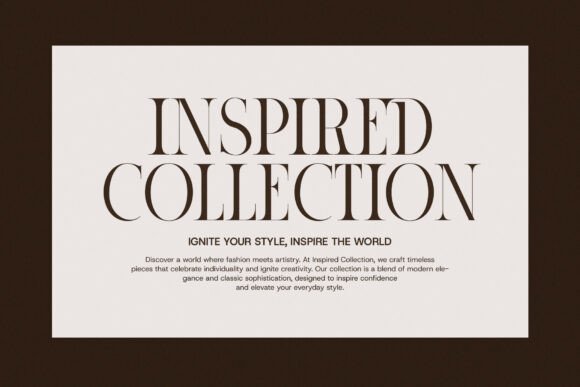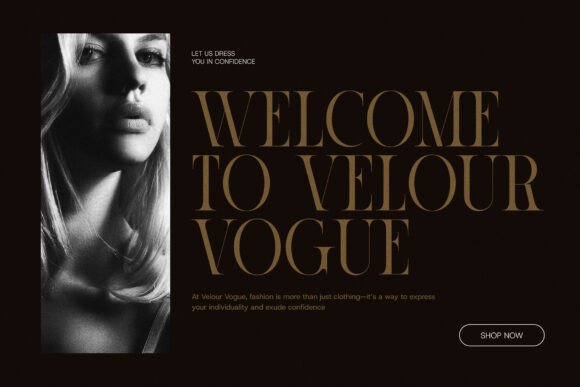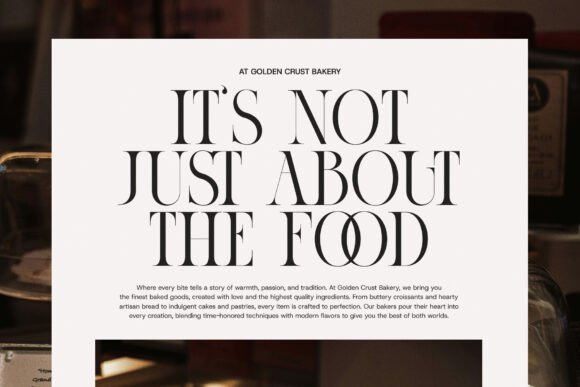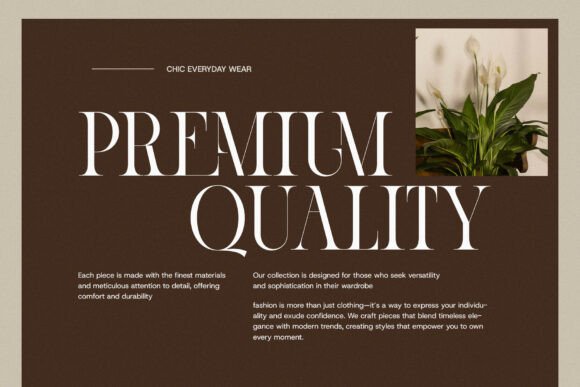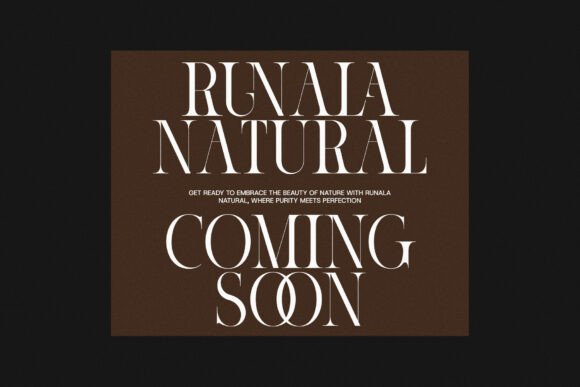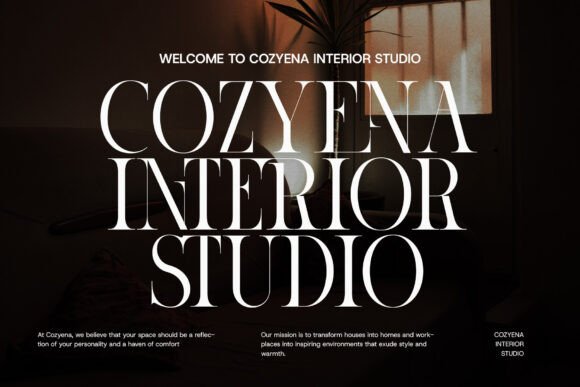
Cinema Authentic Elegant Serif Font: Elevate Your Design with Timeless Sophistication
In the world of typography, few fonts manage to strike a balance between classic elegance and modern flair. Cinema Authentic Elegant Serif Font is one such exceptional typeface that brings a sense of luxury and timeless style to any design project. With its refined, sharp serifs and elegant curves, this font is perfect for designers and crafters looking to add a touch of sophistication to their work.
Distinctive Features of Cinema Authentic
Cinema Authentic boasts several distinctive features that set it apart from other serif fonts. Its refined serifs and elegant curves give it a classic, sophisticated look that’s perfect for high-end branding and logo design. The font also features distinctive ligatures and alternate characters, offering a touch of personality and creative flexibility. This allows designers to create a unique, custom look that sets their designs apart from the rest.
Applications of Cinema Authentic
Cinema Authentic is an incredibly versatile font that shines in a variety of applications. Its bold presence makes it an excellent choice for:
- Upscale product packaging: Add a touch of luxury to your product packaging with Cinema Authentic’s refined, elegant design.
- Refined websites: Elevate your website’s design with Cinema Authentic’s sophisticated typography.
- Magazine layouts: Create striking magazine layouts with Cinema Authentic’s bold, yet elegant design.
- Advertising campaigns: Grab attention with Cinema Authentic’s bold presence, while maintaining an air of elegance.
Ideal for High-End Branding and Logo Design
Cinema Authentic is ideal for high-end branding and logo design, particularly for businesses that want to convey a sense of luxury and sophistication. Whether you’re designing for a:
- Boutique: Cinema Authentic’s elegant design is perfect for creating a sophisticated brand identity.
- Restaurant: Add a touch of luxury to your restaurant’s branding with Cinema Authentic’s refined typography.
- Fashion brand: Cinema Authentic’s bold, yet elegant design is perfect for fashion brands looking to make a statement.
- Luxury service: Cinema Authentic’s sophisticated design is ideal for luxury services, such as high-end hotels or spas.
Versatility Across Digital and Print Formats
Cinema Authentic’s versatility extends across both digital and print formats, making it a valuable addition to any designer’s toolkit. Whether you’re designing for:
- Large headlines: Cinema Authentic performs beautifully in large headlines, making it perfect for billboards, posters, or magazine covers.
- Body text: Cinema Authentic’s refined design also makes it suitable for body text, ensuring your content is easy to read and understand.
Why Choose Cinema Authentic?
With so many fonts available, why choose Cinema Authentic? Here are just a few reasons:
- Timeless sophistication: Cinema Authentic’s classic design ensures it will remain timeless, even as design trends evolve.
- Creative flexibility: Cinema Authentic’s distinctive ligatures and alternate characters offer a touch of personality, allowing for creative flexibility.
- Versatility: Cinema Authentic shines in a variety of applications, from upscale product packaging to refined websites and striking magazine layouts.
In conclusion, Cinema Authentic Elegant Serif Font is a exceptional typeface that brings a sense of luxury and timeless style to any design project. Its refined, sharp serifs and elegant curves make it perfect for high-end branding and logo design, while its distinctive ligatures and alternate characters offer a touch of personality. With its versatility across digital and print formats, Cinema Authentic is an excellent choice for designers and crafters looking to elevate their designs.